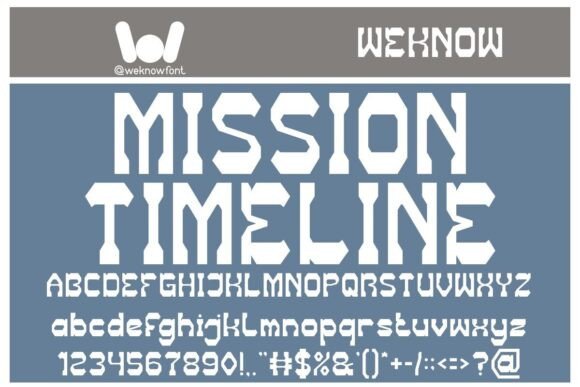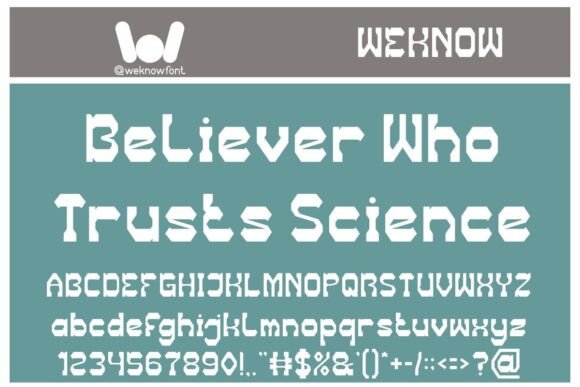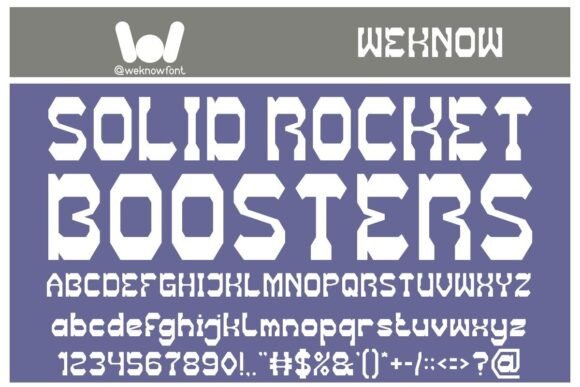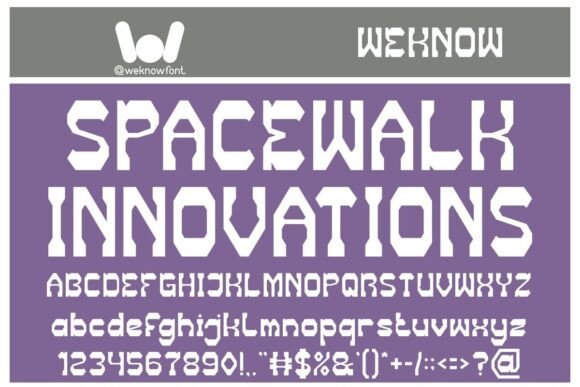
Mission Timeline Font: Bold Techno Display Font for Futuristic Logo Design
About the Mission Timeline Font
Discover the charm of Mission Timeline Font. This font is a perfect blend of modern aesthetics and classic appeal. Meet Mission Timeline, the font that takes you on a journey through time and space. This is not your ordinary typeface; it is an amalgam of retro charm and futuristic appeal, blending techno-sci-fi accents with a modern, minimalist touch. Bold and geometric, Mission Timeline is a condensed display font that carries a formidable presence. Whether you’re creating a distinctive headline, cutting-edge logo, or unique brand identity, this font provides the creative punch you need. Fashion brands can leverage its edgy personality, while gaming or movie industries can capitalize on its sci-fi vibe. From print to digital, book covers to web design, comic strips to Instagram posts, its versatility makes it suitable for various project scopes. Elevate your visual narrative with Mission Timeline. This font proves that in the realm of design, the future is indeed now.
Mission Timeline Font Usage Examples
Mission Timeline Font Example